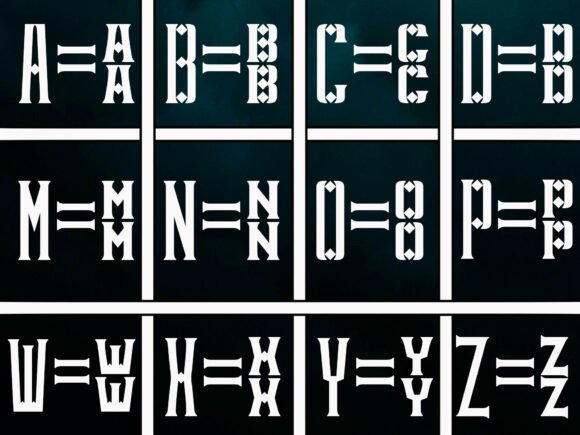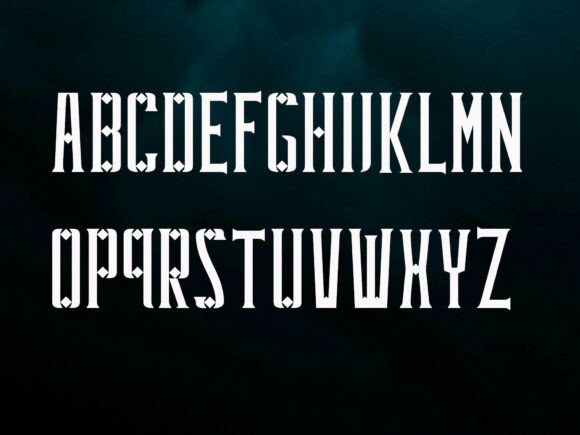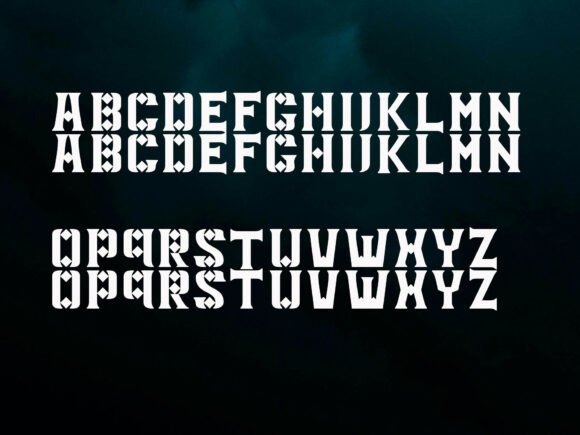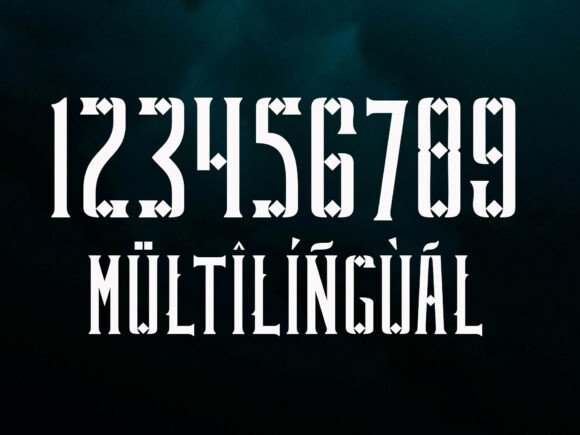
Introduction to Budonger Font
A stylish, bold, and beautiful new display font that perfectly offers beautiful typographic harmony for a wide variety of design projects, including logos and branding, social media posts, advertisements, greeting cards, stationery designs, invitations, T-shirts, clothing, packaging, posters, and more for other product designs.
Key Features of Budonger Font